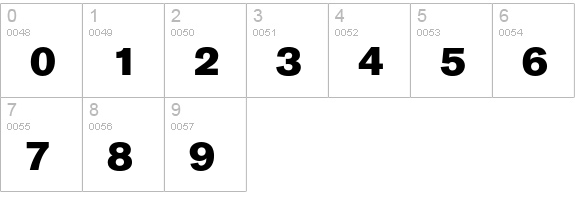
Berthold Akzidenz Grotesk BE Super font is a timeless and classic typeface that exudes sophistication and elegance. With its clean lines and sharp angles, this font is perfect for creating modern and professional designs. The bold and commanding presence of Berthold Akzidenz Grotesk BE Super font makes it ideal for headlines, titles, and branding materials. What sets this font apart is its versatility and adaptability to various design projects. Whether you are working on a sleek corporate presentation or a minimalist website layout, Berthold Akzidenz Grotesk BE Super font will elevate your design to the next level. And the best part? Berthold Akzidenz Grotesk BE Super font is freely available to download at FontsMarket.com. Now you can access this premium font without any cost, making it a valuable addition to your font library. Don't miss out on the opportunity to enhance your designs with the timeless elegance of Berthold Akzidenz Grotesk BE Super font.